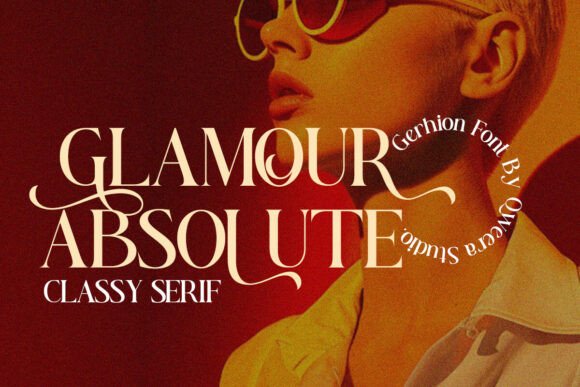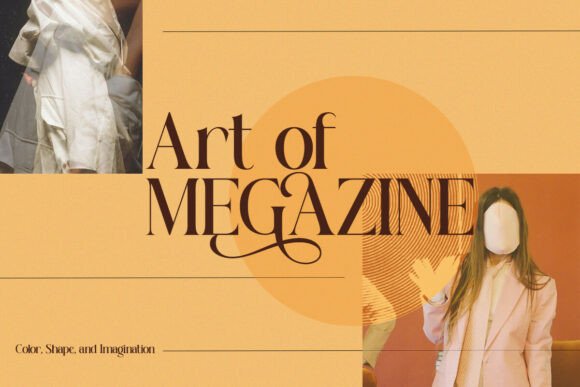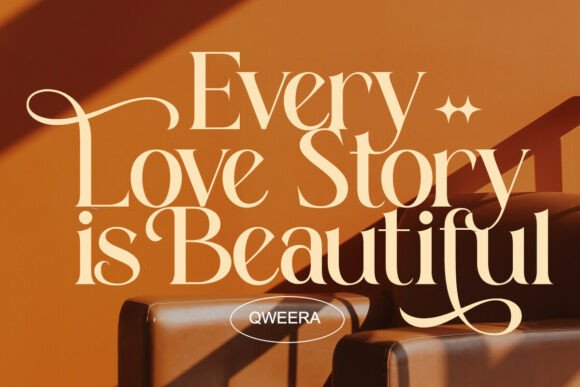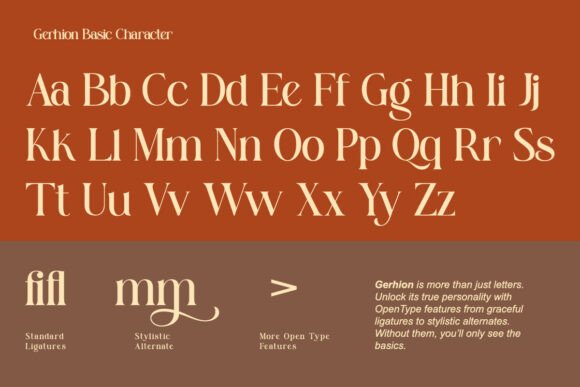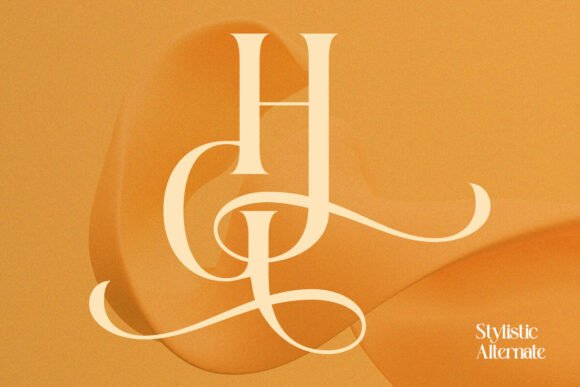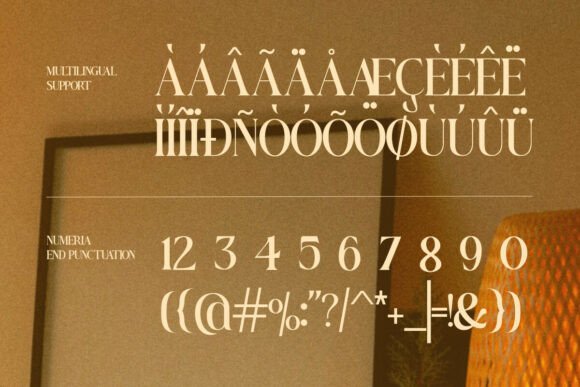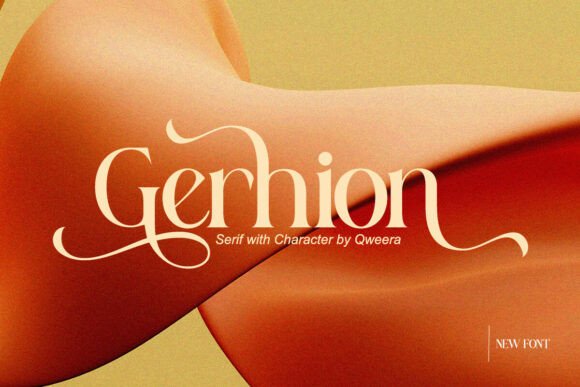
Introducing Gerhion Font: Elevate Your Designs with Sophistication and Elegance
Gerhion is a sophisticated serif font that embodies the essence of luxury and refinement. With its charismatic curves, flowing swashes, and distinctive alternate characters, Gerhion is the perfect choice for designers who want to add a touch of high-end style to their visuals. Designed specifically for high-fashion branding and upscale editorial layouts, Gerhion brings a level of elegance and sophistication that is unmatched.
A Font that Exudes Luxury and Expression
Gerhion’s stylish elegance and flair make it an ideal choice for designers who want to create visually stunning designs that convey luxury, expression, and timeless style. Whether you’re working on a luxury fashion branding project, a wedding suite, a portfolio showcase, or a packaging concept, Gerhion is the perfect font to elevate your designs and add a refined twist.
Ideal Use Cases for Gerhion Font
Gerhion is a versatile font that can be used in a variety of design applications, including:
- Luxury fashion branding: Gerhion’s sophisticated and elegant design makes it perfect for high-end fashion brands that want to convey a sense of luxury and refinement.
- Magazine editorial titles: Gerhion’s flowing swashes and distinctive alternate characters make it an excellent choice for magazine editorial titles that require a touch of elegance and sophistication.
- Wedding logo & stationery: Gerhion’s romantic and refined design makes it perfect for wedding logos, stationery, and other wedding-related designs.
- Elegant quotes & headlines: Gerhion’s stylish elegance and flair make it an excellent choice for creating elegant quotes and headlines that require a touch of sophistication.
- Social media content: Gerhion’s versatility and elegance make it perfect for creating visually stunning social media content that requires a level of sophistication and refinement.
- Premium product packaging: Gerhion’s luxurious design makes it an excellent choice for premium product packaging that requires a touch of elegance and sophistication.
What Makes Gerhion Font Stand Out?
Gerhion font stands out from other fonts due to its unique features, including:
- PUA-encoding: Gerhion font is PUA-encoded, ensuring effortless access to all glyphs, swashes, and alternate characters to help you customize your creations with ease.
- Charismatic curves: Gerhion’s charismatic curves add a level of elegance and sophistication to your designs.
- Flowing swashes: Gerhion’s flowing swashes add a touch of luxury and refinement to your designs.
- Distinctive alternate characters: Gerhion’s distinctive alternate characters provide a level of versatility and customization to your designs.
How Gerhion Font Can Elevate Your Designs
Gerhion font can elevate your designs in several ways:
- Adds emotion and movement: Gerhion’s flowing swashes and charismatic curves add a level of emotion and movement to your designs.
- Adds class and sophistication: Gerhion’s elegant design adds a level of class and sophistication to your designs.
- Customization made easy: Gerhion’s PUA-encoding ensures effortless access to all glyphs, swashes, and alternate characters, making customization a breeze.
In conclusion, Gerhion font is a sophisticated serif font that embodies the essence of luxury and refinement. With its charismatic curves, flowing swashes, and distinctive alternate characters, Gerhion is the perfect choice for designers who want to add a touch of high-end style to their visuals. Whether you’re working on a luxury fashion branding project, a wedding suite, a portfolio showcase, or a packaging concept, Gerhion is the perfect font to elevate your designs and add a refined twist.